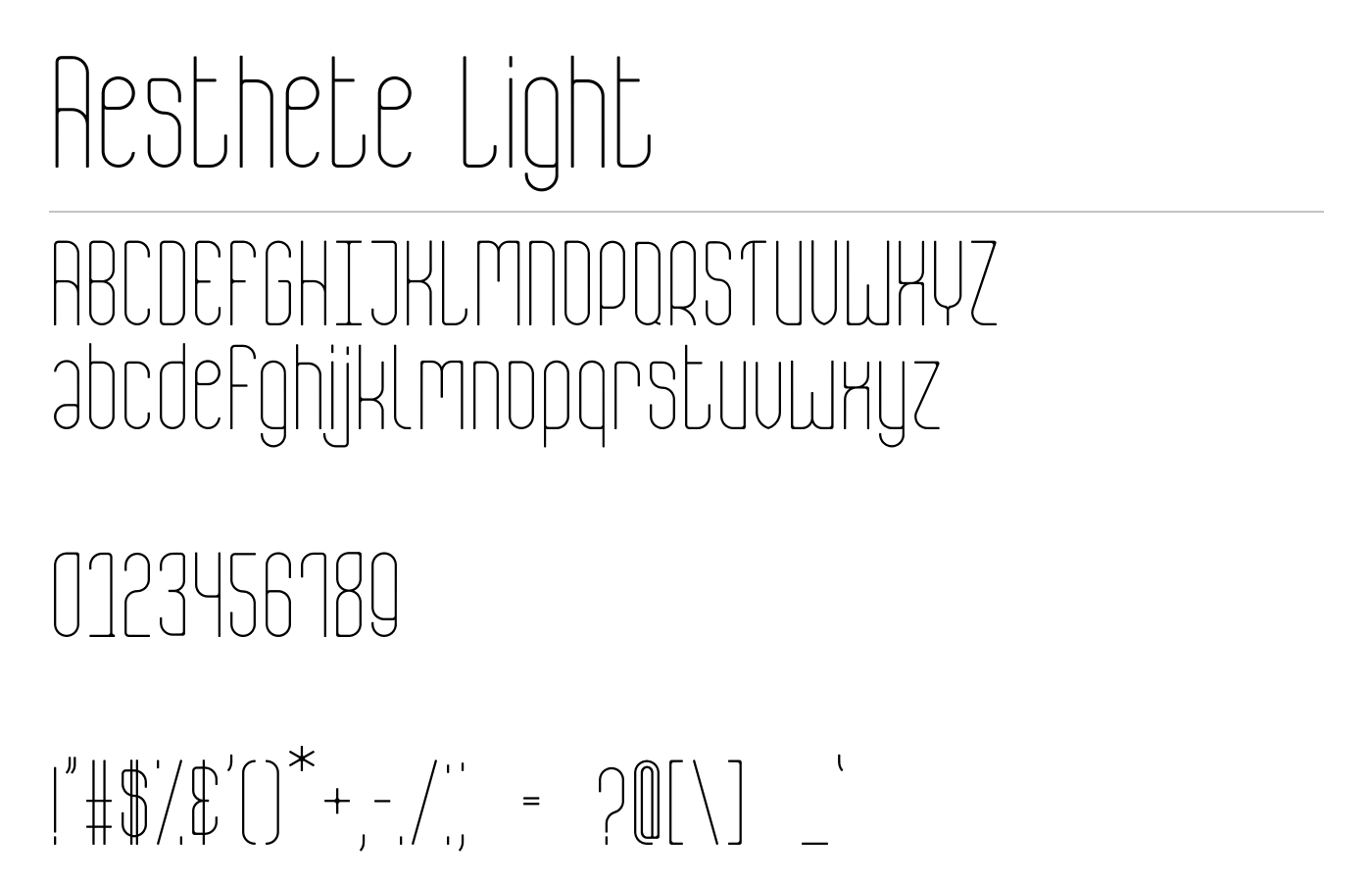
Aesthete Light is a slender, modern sans serif font characterized by its tall, narrow letterforms and minimal stroke contrast. With its clean, geometric lines and delicate curves, it conveys a sleek and contemporary aesthetic perfect for stylish branding or headline use where a refined, elegant look is desired. This font works especially well in fashion, luxury, and editorial designs that aim to communicate sophistication and modernity.
Aesthete Font
About Aesthete Font
| Font family | Aesthete Font |
| Designer | Eran Waldeck |